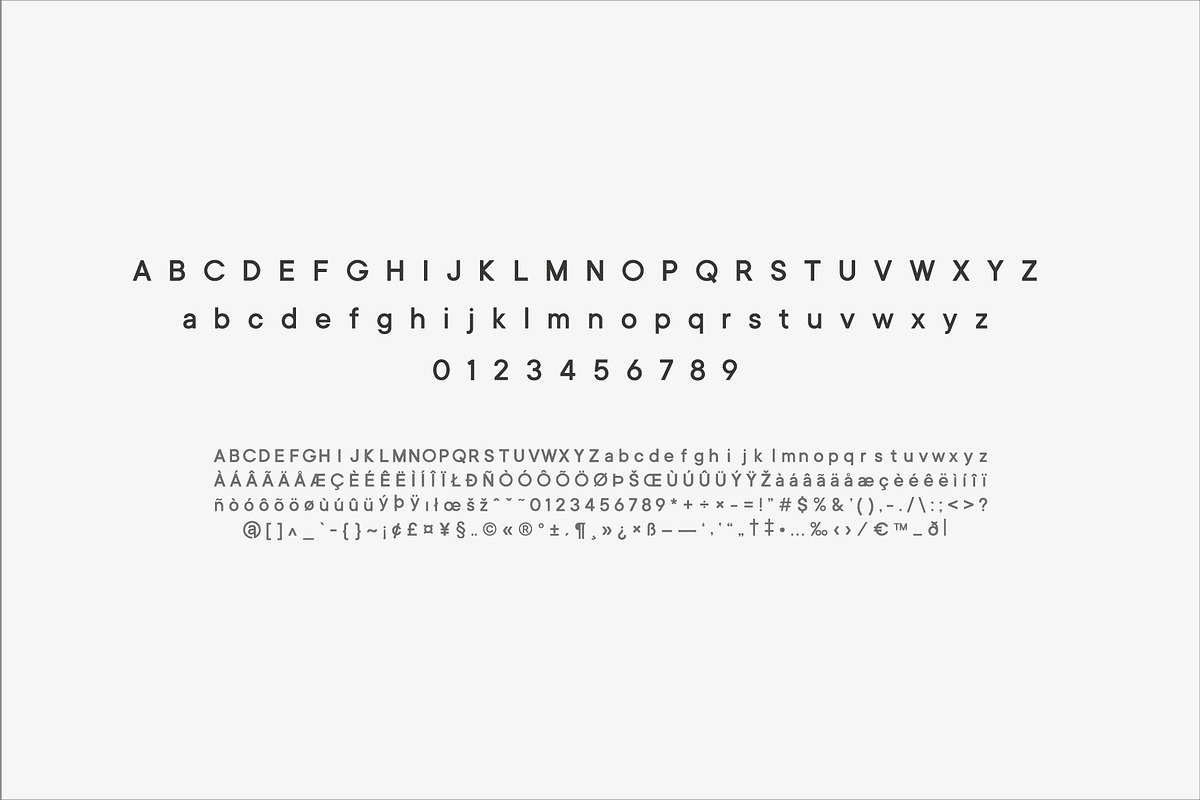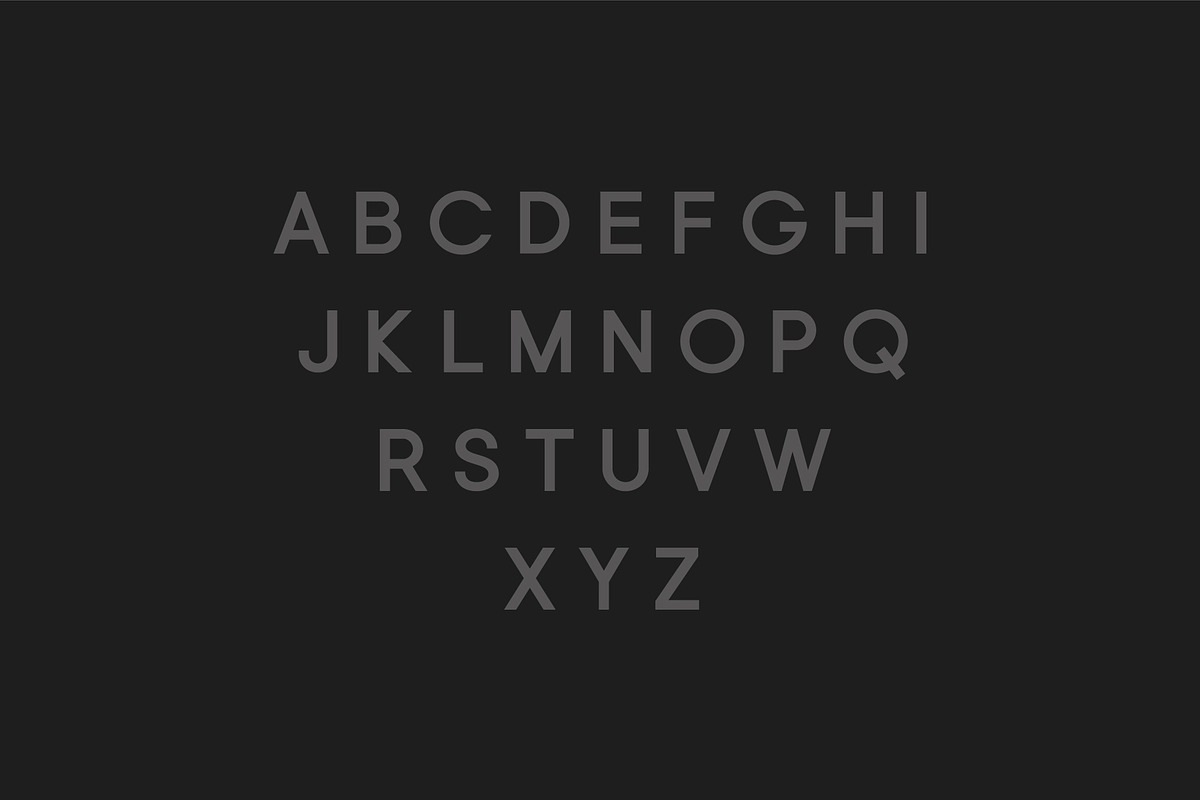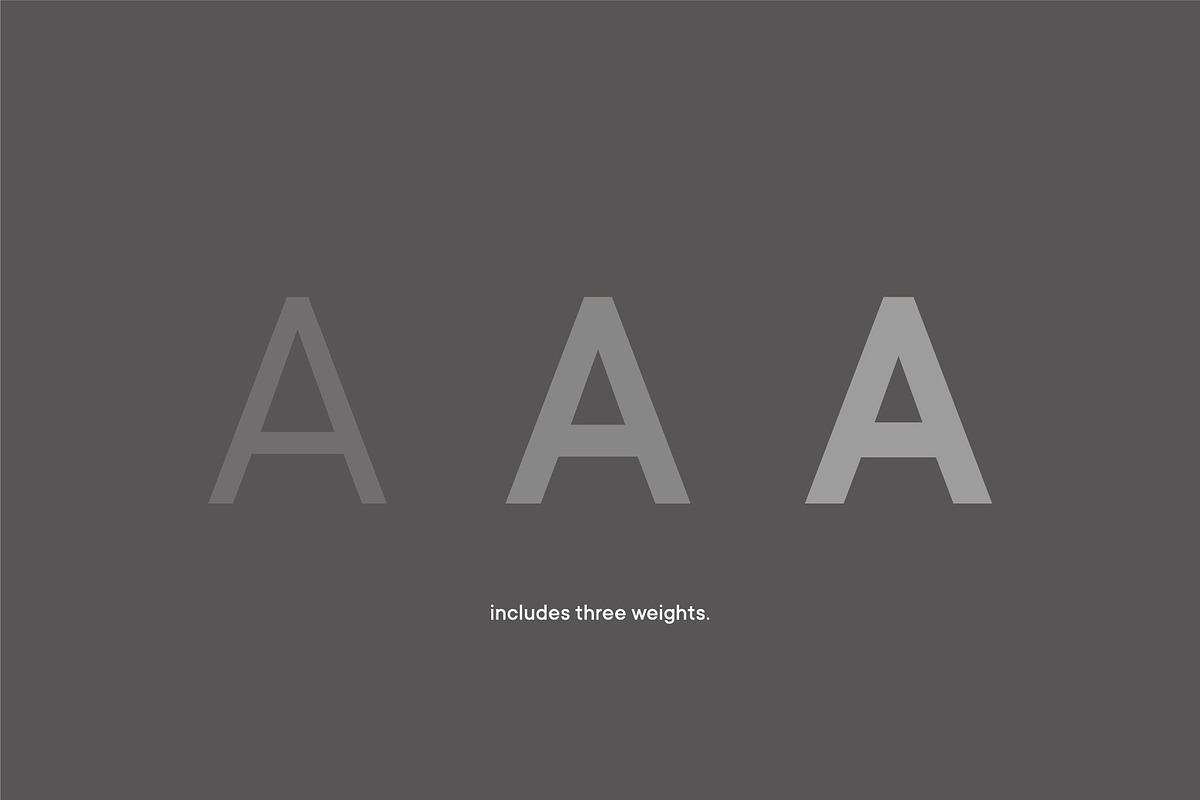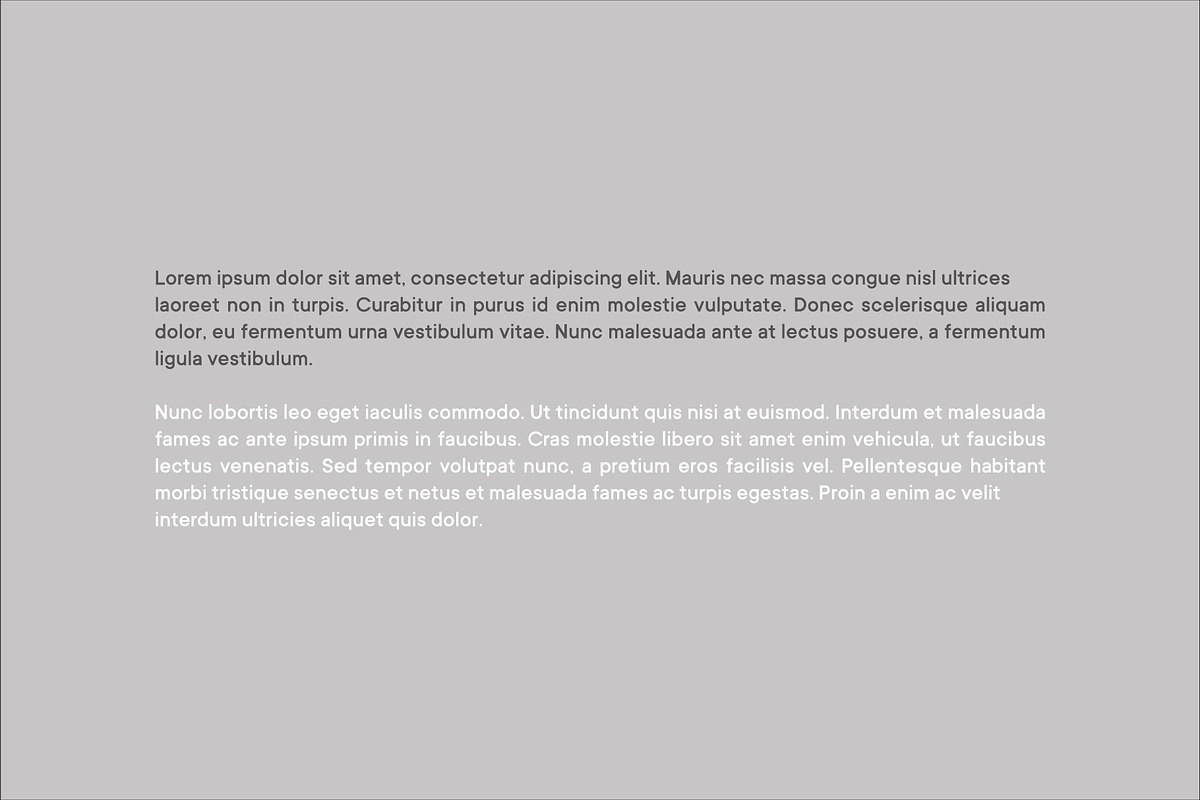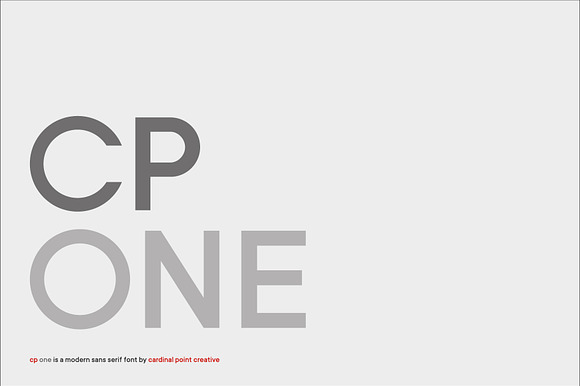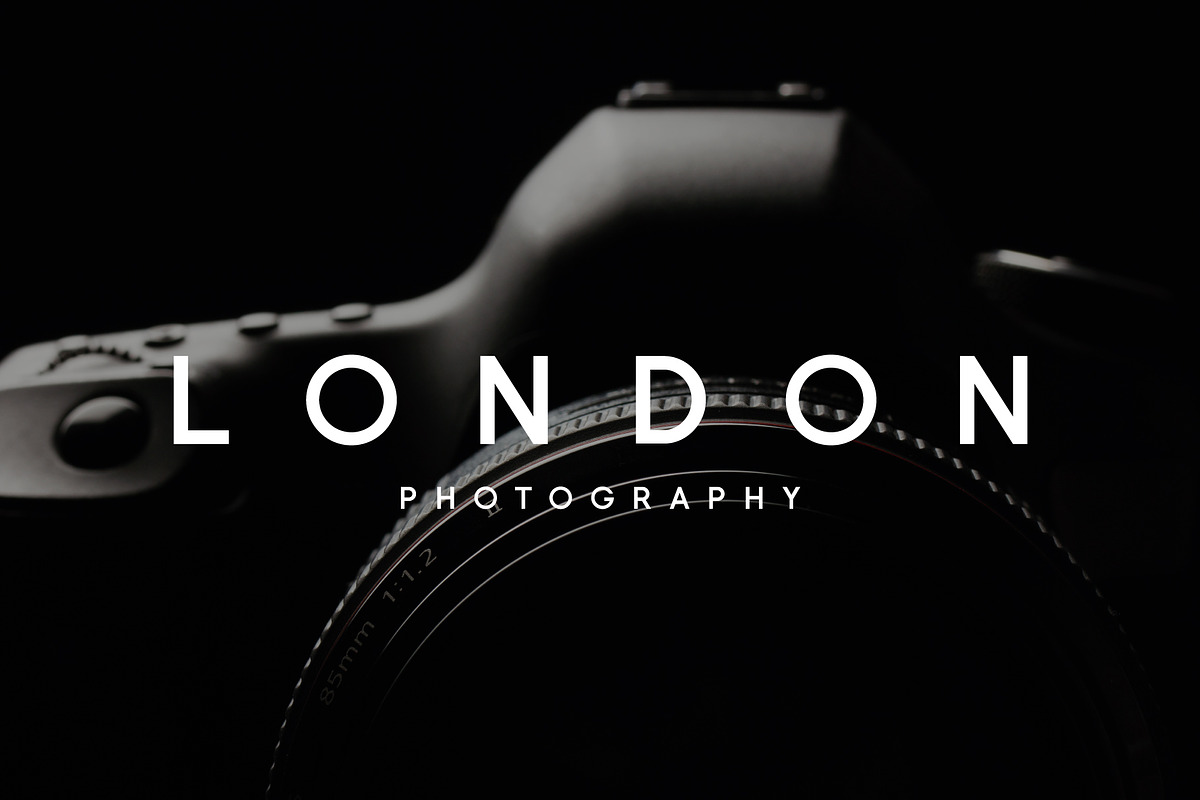
CP ONE Sans Serif Font Family
The CP ONE font has been created to use with branding, logo design, web design and so much more... The geometric upper case glyphs make for perfect header, title or headline creation and work great when designing full caps paragraphs. The lower case set is modern and crisp and makes for an attractive, easy to read, body font.
- CP ONE Light
- CP ONE Regular
- CP ONE Bold